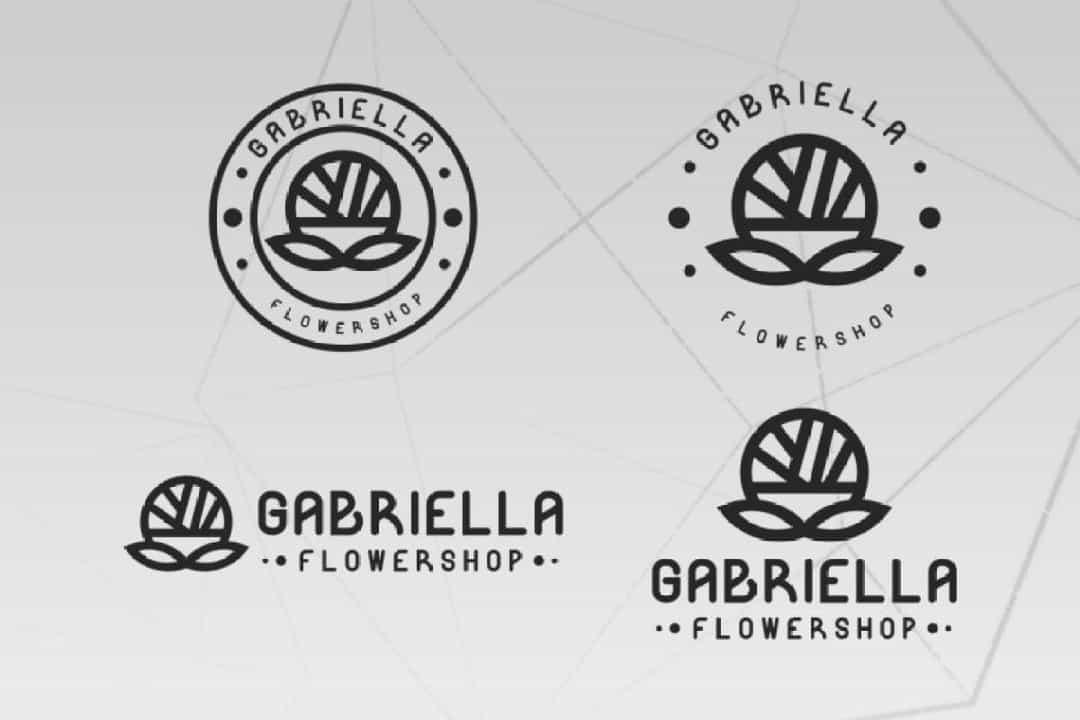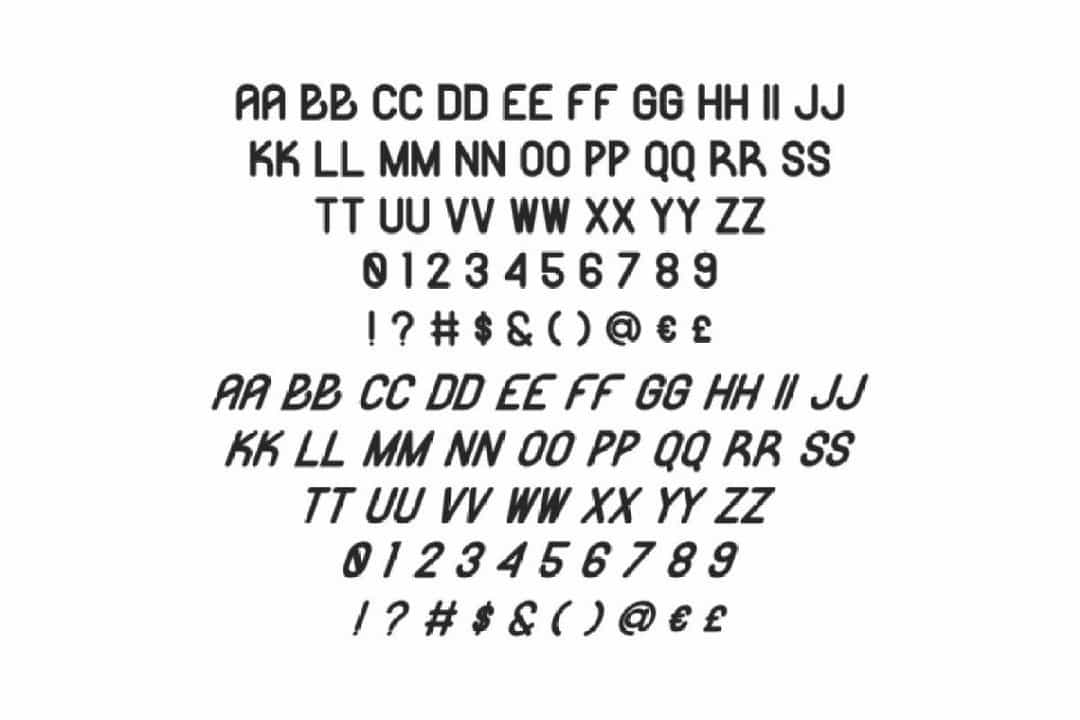
Likeguard Font is an all-caps Sans Serif display font family featuring seven styles: Regular, line, bold, bold italic, light italic and italic. Created by NihStudio Font Designers Nouval and Sarah, Likeguard Font is suitable for a range of projects including branding/logo stationery projects; business cards/stationery flyer production; signage production or brochure creation among others.